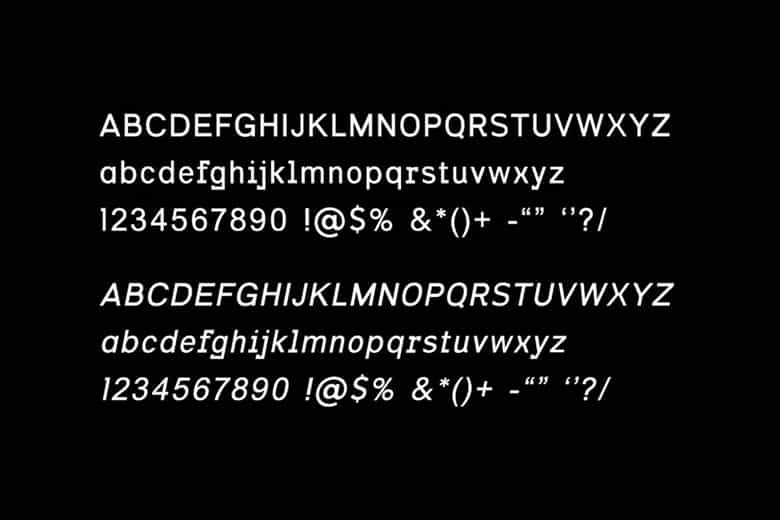
Maxbeland is a new sans-serif font by UICreative and has smooth lines and beautiful appearance.. This font is perfect for different tasks like business cards, logos, wedding, quotes, posters, magazine or book covers, websites headers, branding and more.